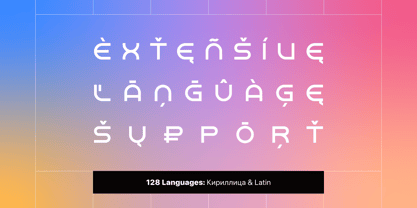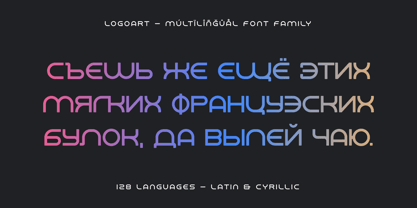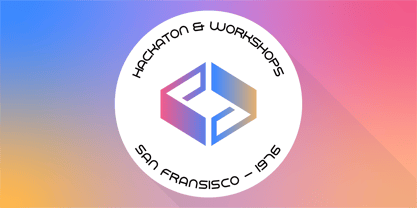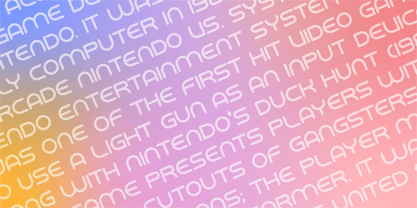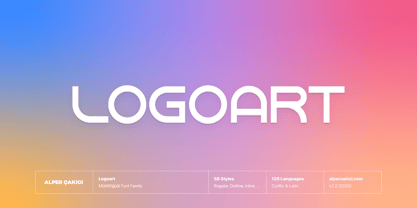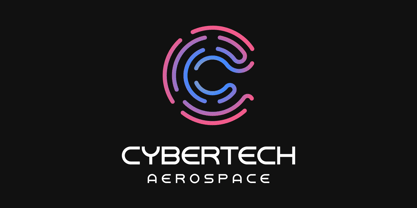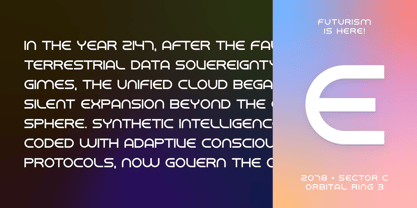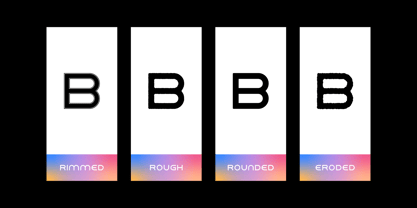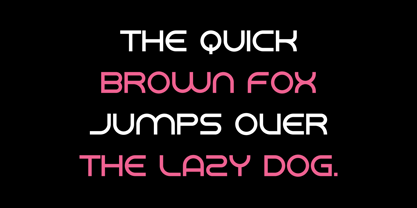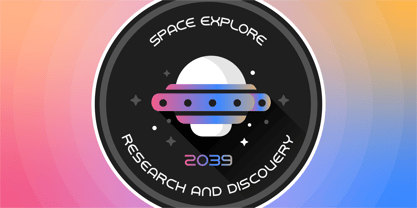
Logoart
by AlperCakici
The Logoart Font Family was designed by Alper Çakıcı and published by AlperCakici. Logoart contains 57 styles and family package options. More about this family
🚀 Logoart – The Futuristic Multi-Style Branding Typeface System Logoart is a forward-thinking type family built for designers who want impact, innovation, and stylistic range. Combining futuristic geometry with refined stencil-inspired engineering, Logoart provides a powerful library of 58 handcrafted styles—including clean, angular, circular, rounded, inline, rimmed, brush, textured, rough, pencil, outline, and eroded variations. Whether you're designing high-tech branding, immersive game interfaces, cinematic sci-fi titles, expressive posters, or modern UI, Logoart gives you a complete visual system capable of shaping countless moods within one cohesive family. ✨ Why Choose Logoart? 58 Styles: Angular, Circular, Rounded, Brush, Rough, Inline, Rimmed, Pencil, Noise, Eroded, Outline & matching italics. Futuristic Branding DNA: Engineered geometry and stencil-inspired cuts create a distinct modern aesthetic. Versatile & Flexible: Perfect for tech branding, UI/UX, games, posters, motion graphics, signage, and product design. Optimized for Performance: Smooth readability and consistent structure across print, digital, and large-scale displays. Global Reach: Supports 128 languages across Latin + Cyrillic scripts.
Designers: Alper Çakıcı
Foundry: AlperCakici